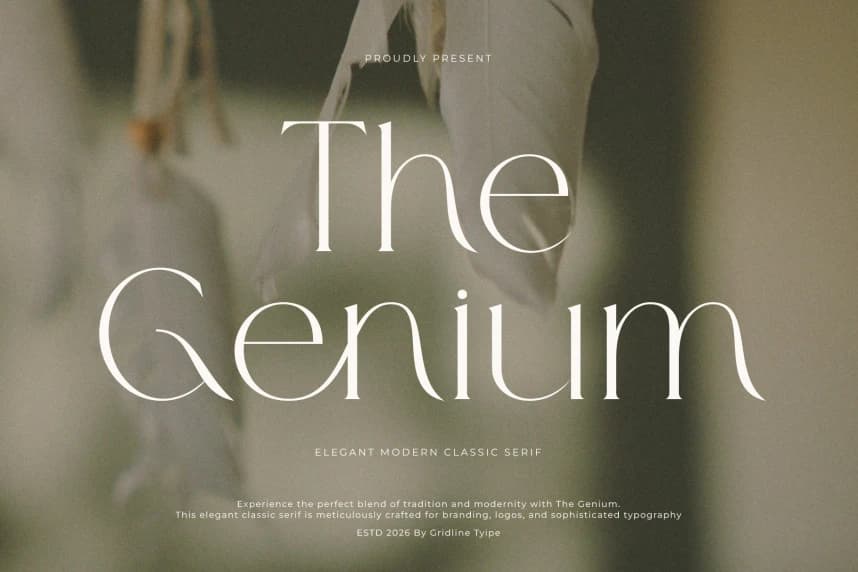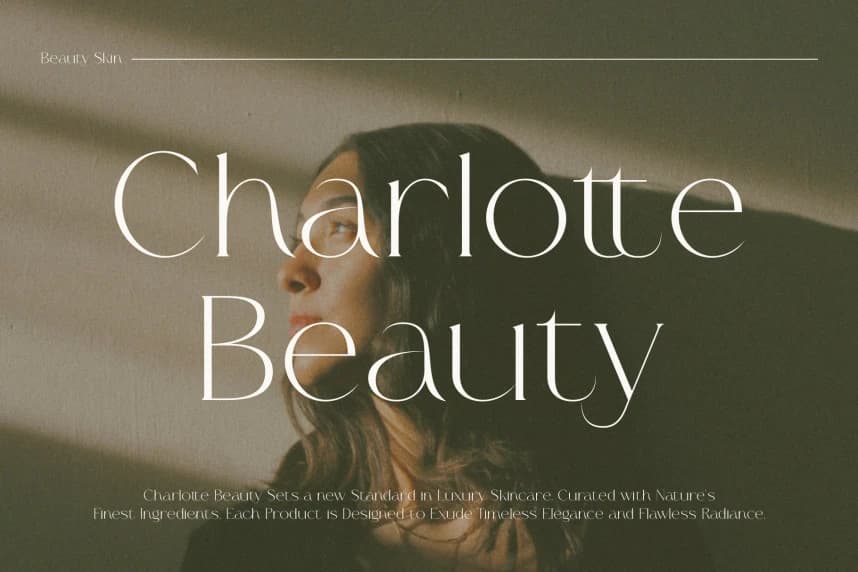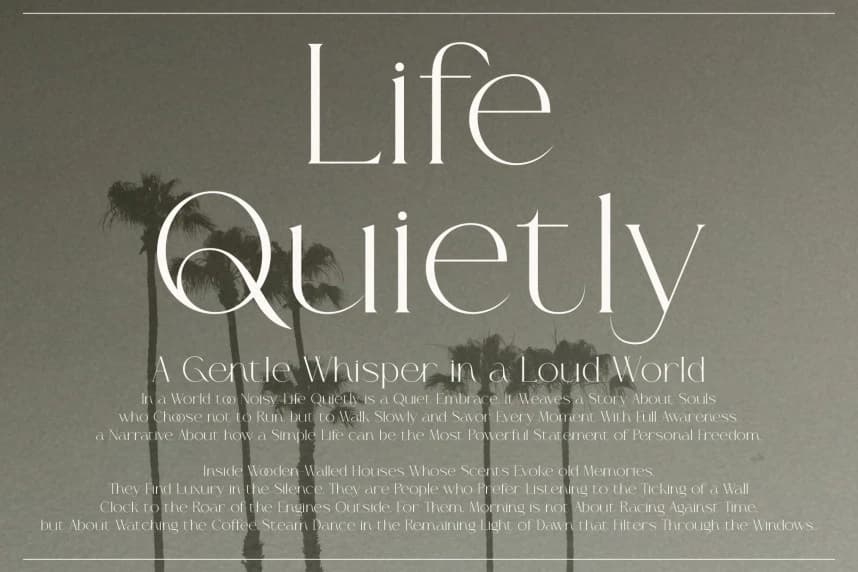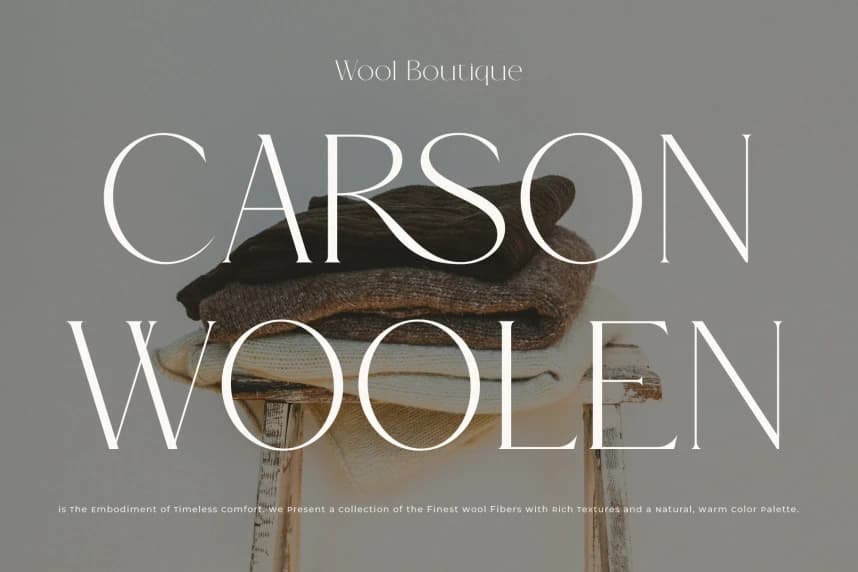
The Genium Font
The Genium Font, a high-fashion display serif that captures a “prestigious-and-poetic” soul. This font features stunning, high-contrast letterforms uniquely characterized by rhythmic, sweeping curves and razor-sharp terminals that bridge the gap between archival Roman excellence and modern editorial
The Genium Font, a high-fashion display serif that captures a “prestigious-and-poetic” soul. This font features stunning, high-contrast letterforms uniquely characterized by rhythmic, sweeping curves and razor-sharp terminals that bridge the gap between archival Roman excellence and modern editorial branding.